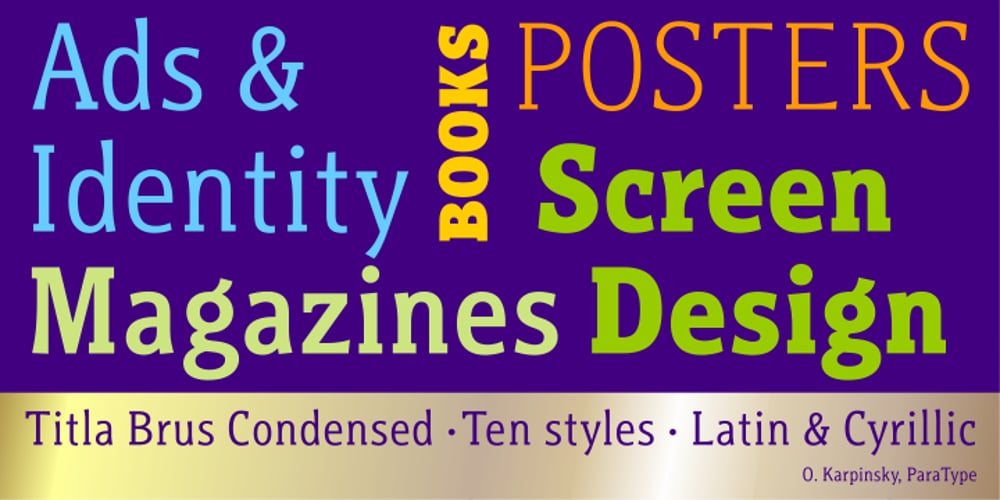
Titla Brus
Titla Brus font
Titla Brus Font Family was designed by Oleg Karpinsky and published by ParaType. Titla Brus contains 20 styles and family package options. Font family Titla Brus was developed as an extension of Titla, released earlier in 2009. New slab serif family consists of 20 members the normal and condensed proportions that present 6 weights from Light to Ultra. The fonts can be used in combination with Titla or by itself in different display matters. Typefaces demonstrate original and catchy way of using serifs — in some places there are traditional slab serifs, in other places — one-sided and often there are no serifs in the places where they normally should be. This approach brings to the letter shapes an unusual appearance and peculiarity. Design was developed by Oleg Karpinsky. Released by ParaType in 2011–2013 at first as a set of ten condensed styles and later in extended version enhanced by ten normal styles.